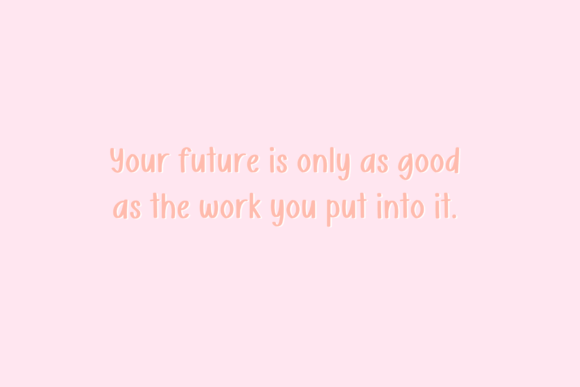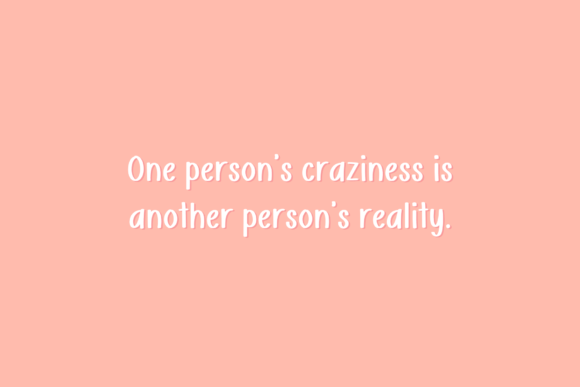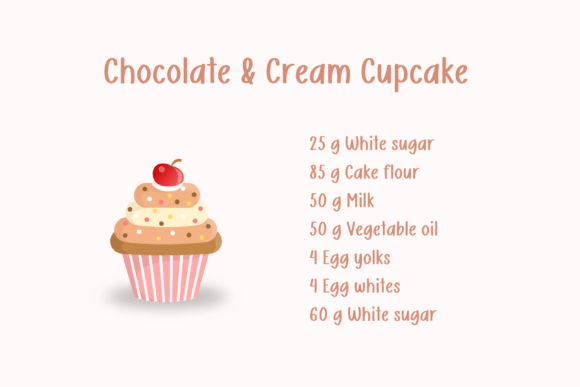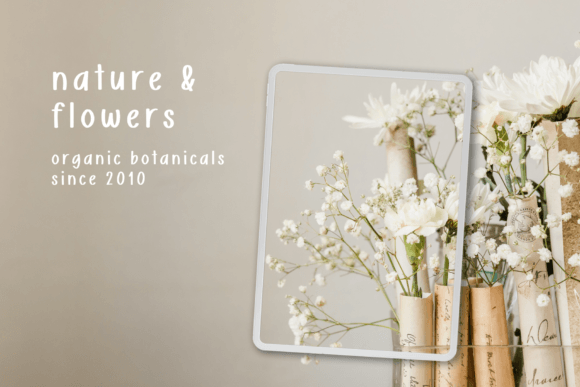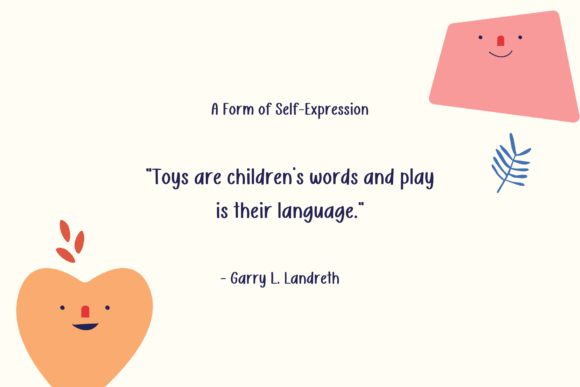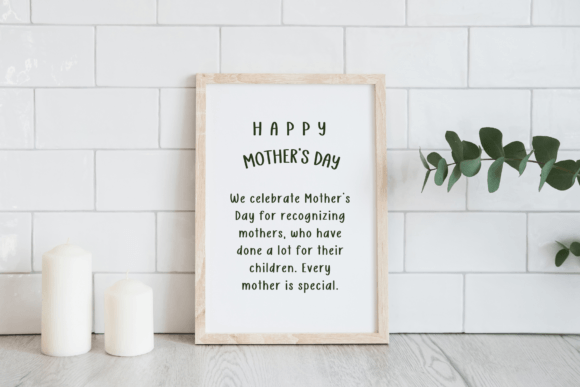
Introduction to Gummy Worms Font Font
Fonts play a crucial role in design, and the Gummy Worms Font font is a typeface that brings both character and versatility to any project. Whether you’re working on a branding project, a website, or a print design, the Gummy Worms Font font offers a unique style that can elevate your work.
You can use this font to jazz up your digital planner, journal, invitations, note-taking, or anything that requires a handwriting look.
Key Features of Gummy Worms Font Font
Why Choose Gummy Worms Font Font?
The Gummy Worms Font font is more than just a typeface – it’s a design tool that helps you communicate your message with style and clarity. Its unique character set and versatile design make it suitable for a wide range of applications, from elegant invitations to bold headlines.
With its carefully crafted letterforms and balanced proportions, the Gummy Worms Font font ensures readability and visual appeal across all mediums.
What makes Gummy Worms Font font special?
The Gummy Worms Font font stands out with its unique design, exceptional readability, and versatility across various design applications.